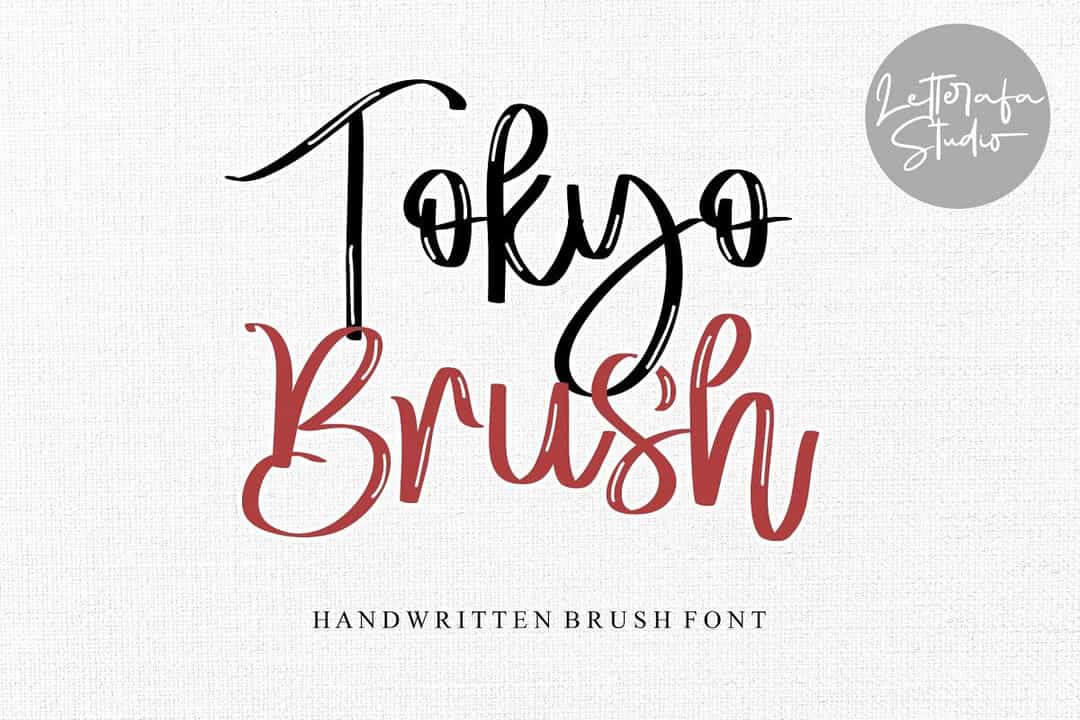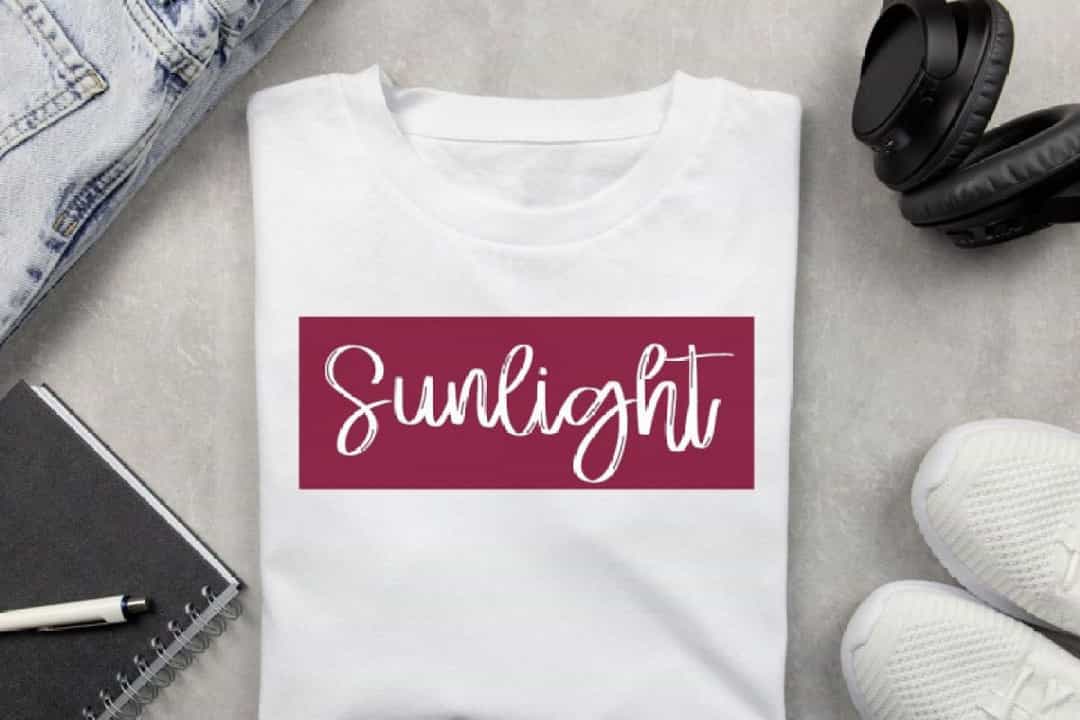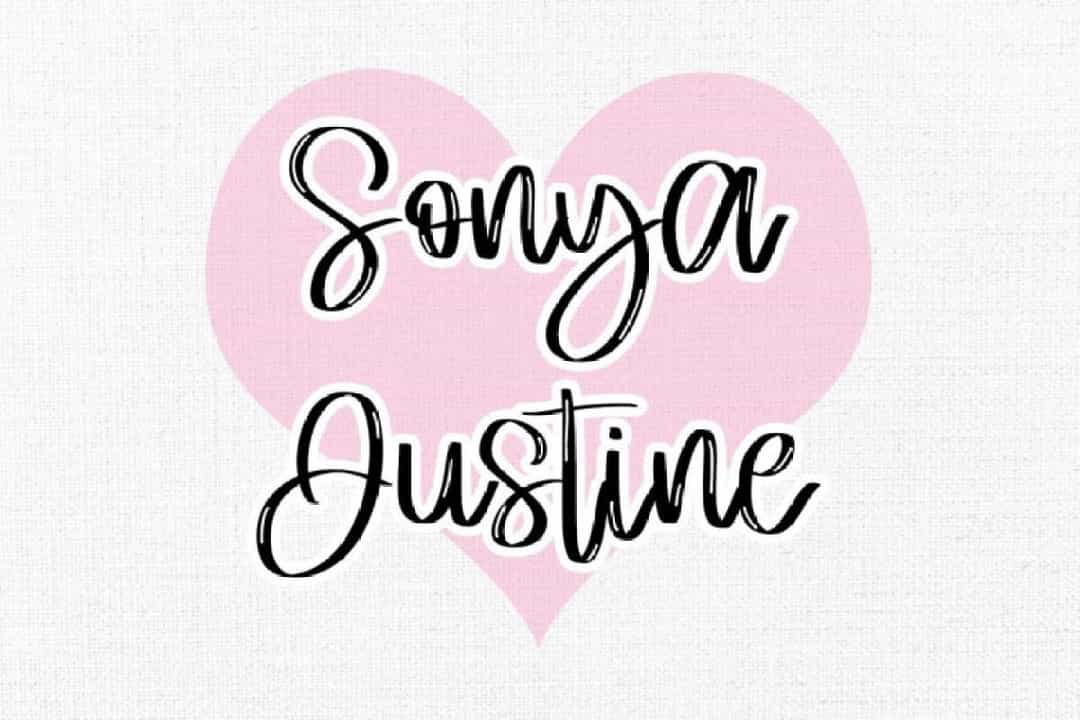
Tokyo Brush is an authentic handwritten brush font perfect for greeting cards, logos, packaging design, branding identity projects, craft designs, DIY book titles, wedding invitation, packaging projects as well as various Christmas projects and much more.